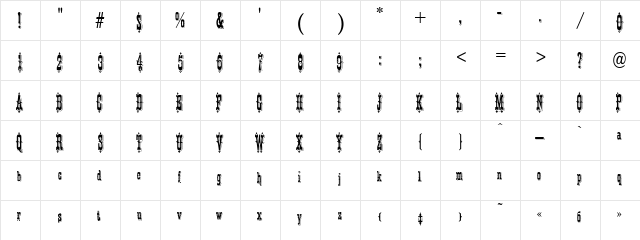
Patience Regular
| Foundry | Ivan Zeifert works |
| Designer | Ivan D Zeifert |
Patience is a composed and adaptable typeface that performs quietly and consistently across a wide range of design contexts.